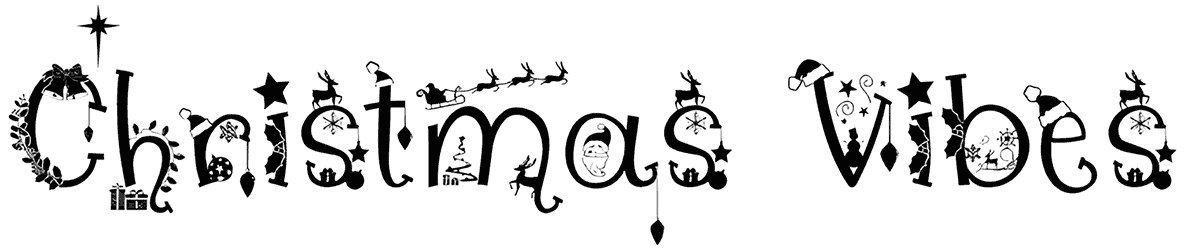
Christmas Style Font
Christmas Style is an adorable hand-style font that is elegant, playful, and slightly messy. Although the letters of this Christmas font are a little full of circles and twists, this fact does not affect the viewers and cannot take away anything from the charm of this font.
Give a greeting card or Christmas gift in the most beautiful way to your dearest people by using this handwritten font to decorate your writing.